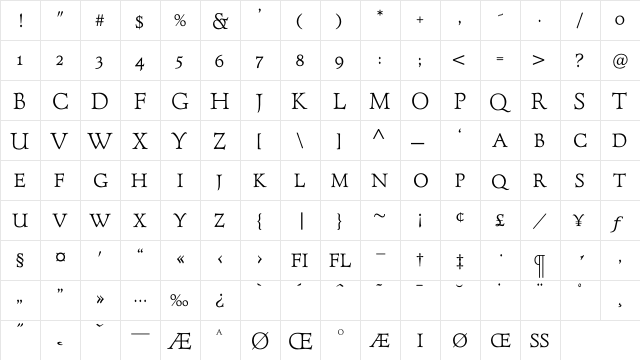
ForumTitlingMediumOldStyleFigs Regular
Design Context for ForumTitlingMediumOldStyleFigs Typeface
ForumTitlingMediumOldStyleFigs brings classic typographic sensibility to the table — its serifs and measured letterforms reflect centuries of print heritage.
Pro Tip: Set ForumTitlingMediumOldStyleFigs with slightly loose tracking in headlines to let each letterform's detail read clearly at display sizes.